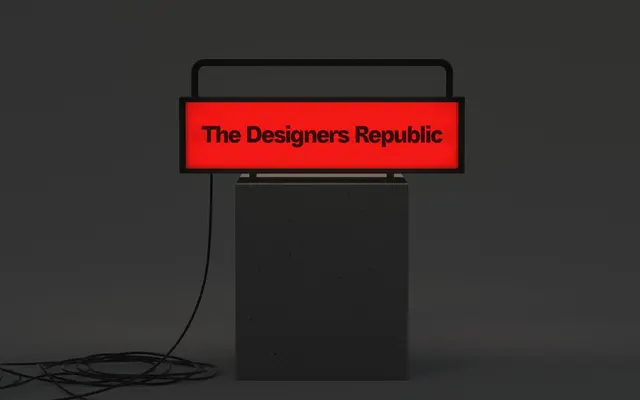
A neo-grotesque with Helvetica and Haas Unica roots, updated with ink traps for a machine-like, technology-facing aesthetic.
Heltar takes its cues from Helvetica and Haas Unica, adding optical corrections for tight tracking and ink traps that give it a stylised, mechanical edge. Eight weights with matching obliques are included, alongside over 650 characters per style, fourteen number variants and alternate glyphs for characters such as I, R, a, g and l. Language support covers Western, Southern and Central European Latin scripts, making it a broad-ranging choice for tech and manufacturing branding.
Explicitly described as a neo-grotesque, drawing from Helvetica and Haas Unica lineage with ink traps added for a machine-like aesthetic. Sits squarely in the neo-grotesque tradition with optical corrections and tight-tracking readability.